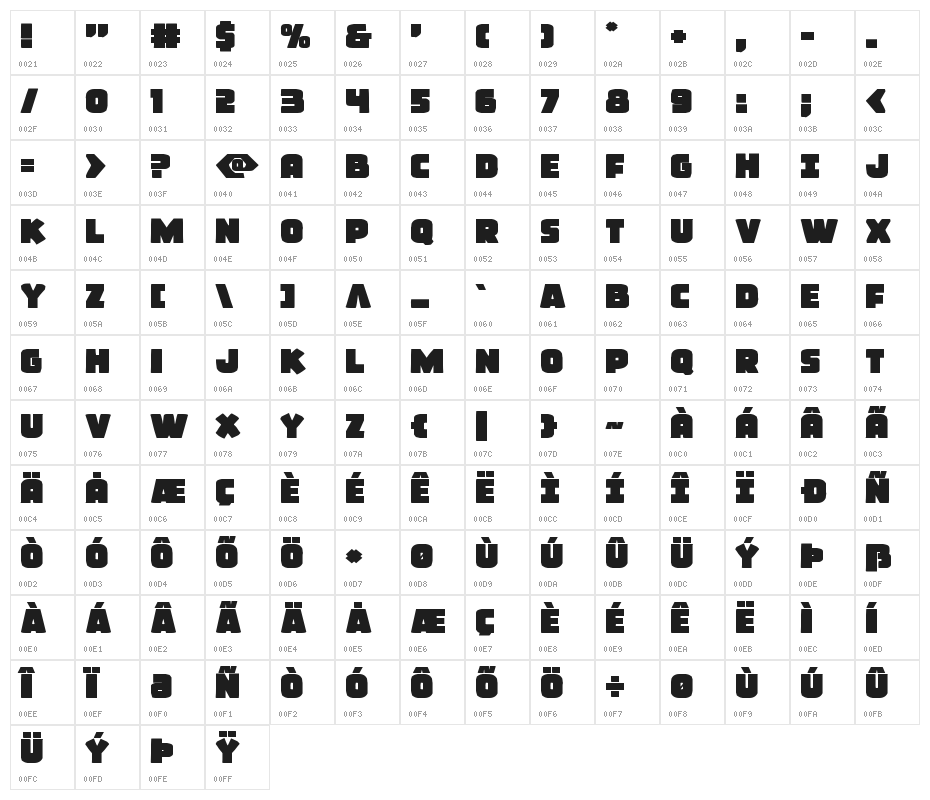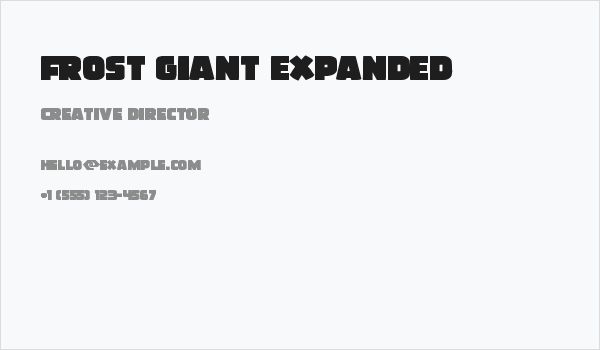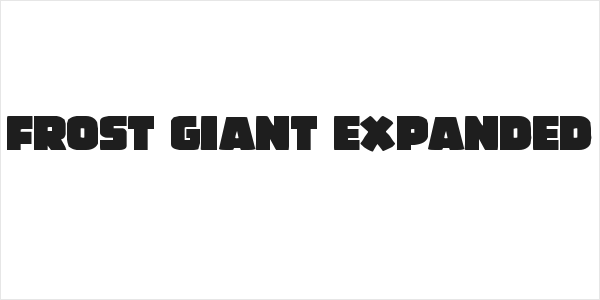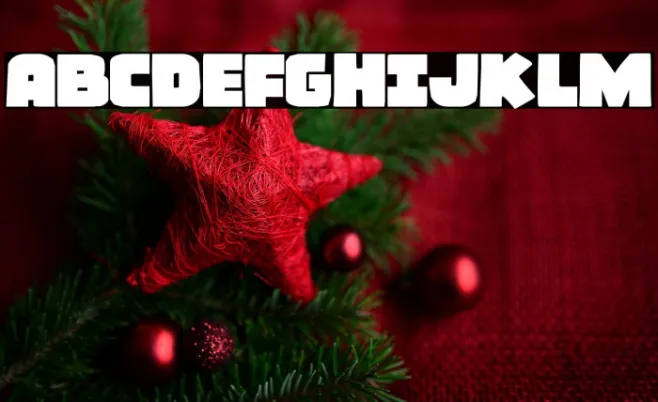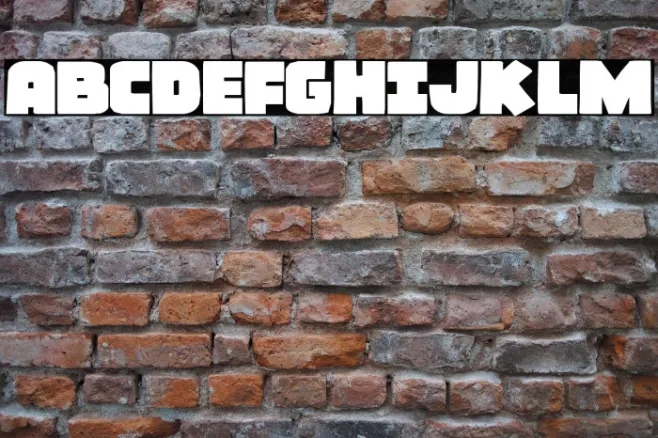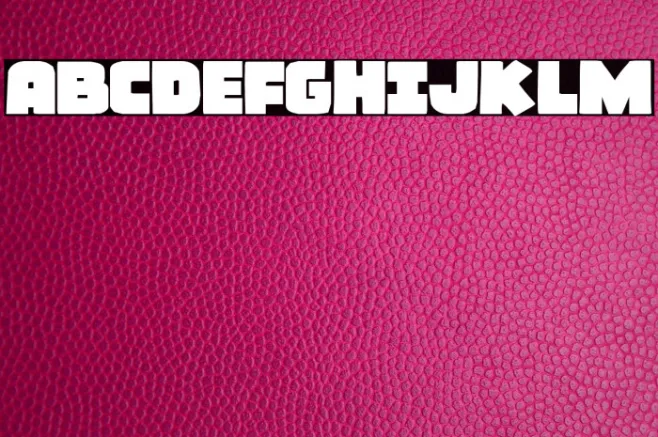
Frost Giant Expanded Font
Frost Giant Expanded Description
This font exhibits a bold and robust design, characterized by its thick, block-like letters that convey a sense of strength and impact. The uppercase and lowercase letters maintain a consistent width, creating a uniform appearance. The characters are slightly expanded, enhancing their presence and making them ideal for attention-grabbing headlines. The numbers and special characters follow the same bold style, ensuring cohesion across all text elements. The font's design is straightforward yet powerful, making it suitable for projects that require a strong visual statement.
| Proposed Projects | Ideal for posters, banners, logos, and any design needing a bold statement. |